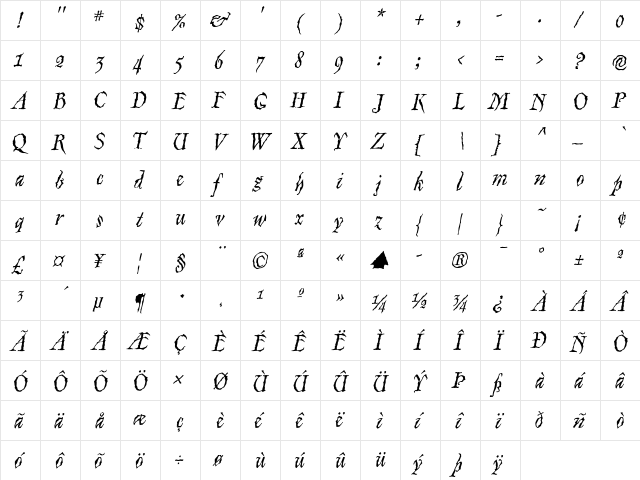
Merlin Italic
Italic · Nick Shinn, . Published by FontShop International. FontFont Release  ·
Design Context for Merlin Typeface
Merlin is a composed and adaptable typeface that performs quietly and consistently across a wide range of design contexts. The slanted form adds forward momentum and visual energy.